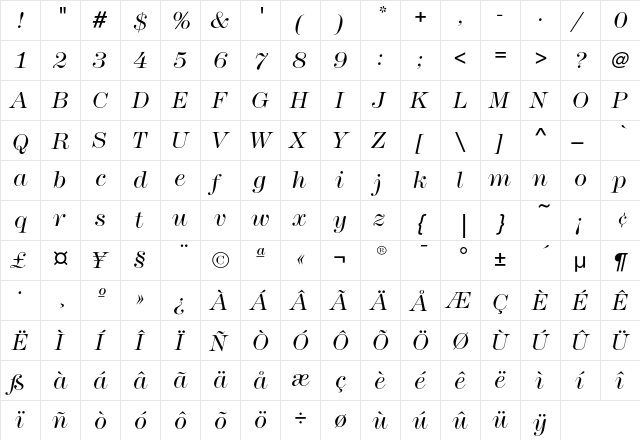
ModernNo216EF LightItalic
Design Context for ModernNo216EF Typeface
ModernNo216EF takes a measured approach to typography — its balanced proportions and neutral character make it a reliable workhorse for both digital and print work. The dynamic lean of this cut emphasises speed and emphasis in any layout. The delicate stroke weight brings airiness and refinement to layouts.
Pro Tip: Try ModernNo216EF for annotation and caption copy alongside an upright companion — the contrast in angle creates a dynamic but ordered typographic system.